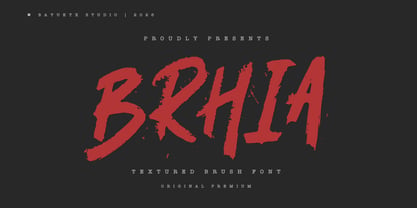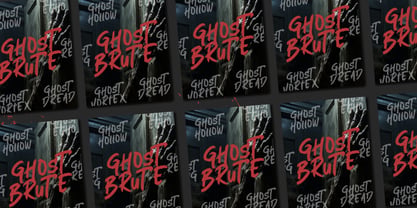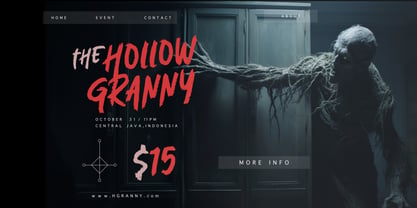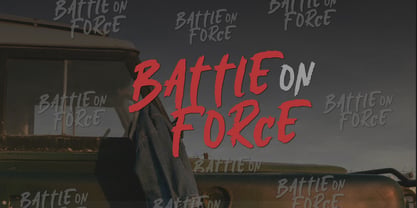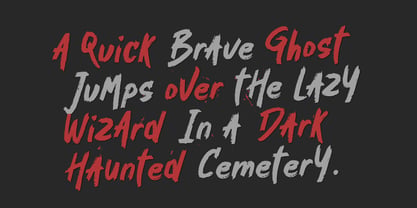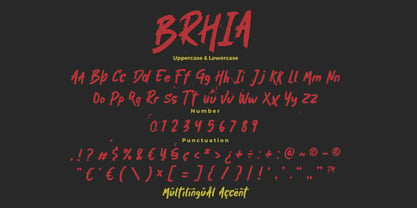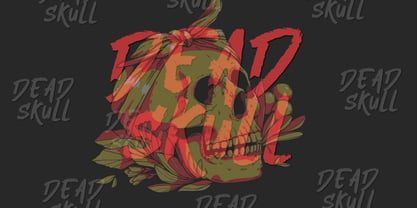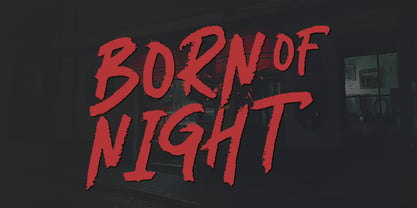
Brhia
Brhia – Textured Brush Font
Brhia Textured Brush Font is a bold and expressive typeface inspired by raw brush strokes, hand-painted lettering, and gritty artistic textures. Featuring rough edges, dynamic strokes, and natural imperfections, this font delivers a strong and impactful visual presence.
Designed to capture the energy of real brush movement, Brhia combines expressive hand-drawn forms with a modern and edgy aesthetic. Each character is crafted with textured details and organic flow, creating a powerful and authentic look that feels alive and full of attitude.
With its striking and versatile style, Brhia is perfect for designs that aim to stand out with a bold, artistic, and rebellious character. It brings a dramatic and high-impact feel that works exceptionally well across modern and creative projects.
Key Features :
* Uppercase & Lowercase Characters
* Numerals & Punctuation
* Multilingual Support
* PUA Encoded & OpenType Features
* Textured Brush Style
* Rough & Dynamic Letterforms
* Bold & Expressive Look
Suitable Features :
* Branding & Logo Design
* Album Covers & Music Artwork
* Social Media Graphics
* Posters & Headlines
* Merchandise Projects
* Packaging & Labels
* Bold & Creative Designs
With Brhia Textured Brush Font, your designs will achieve a powerful, edgy, and expressive look—perfect for projects that demand strong visual impact and artistic character.